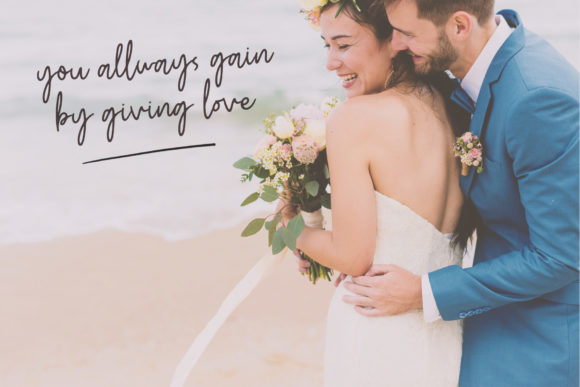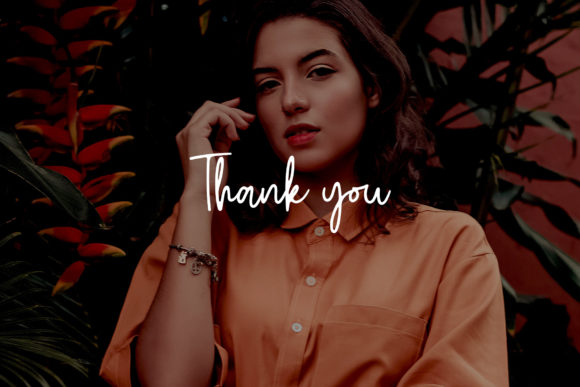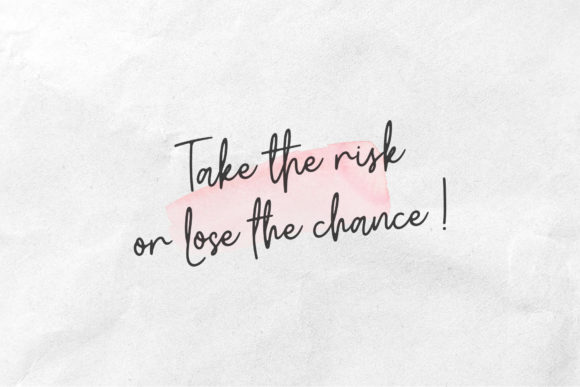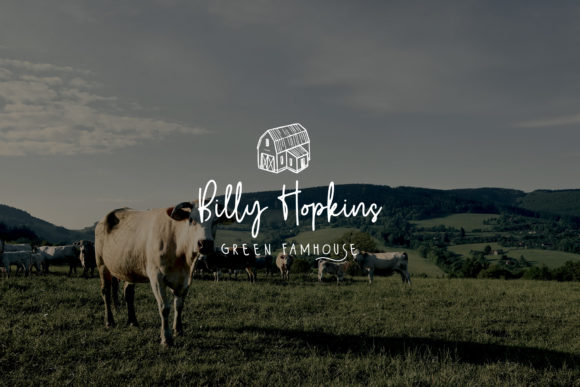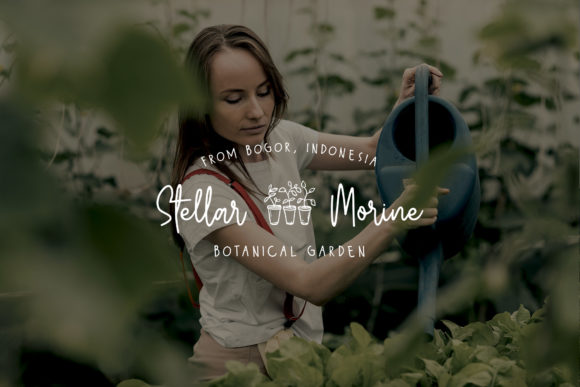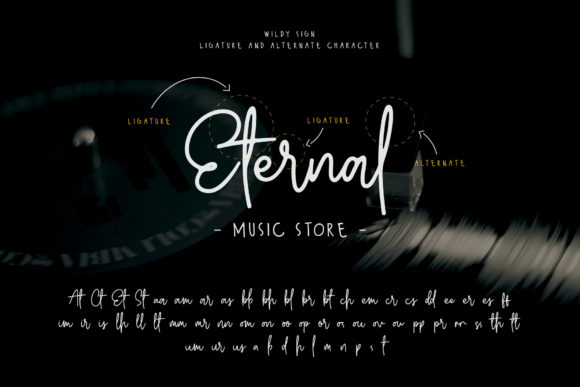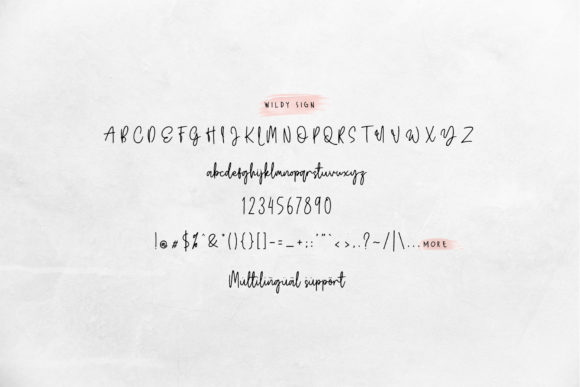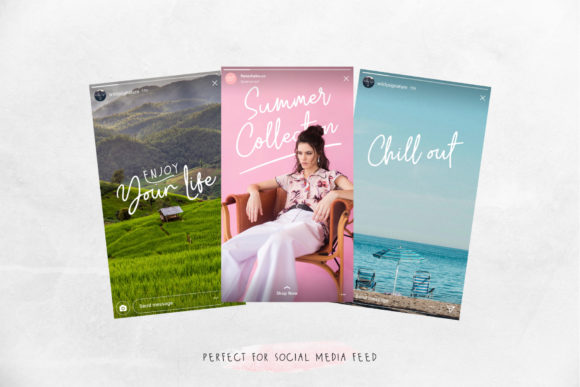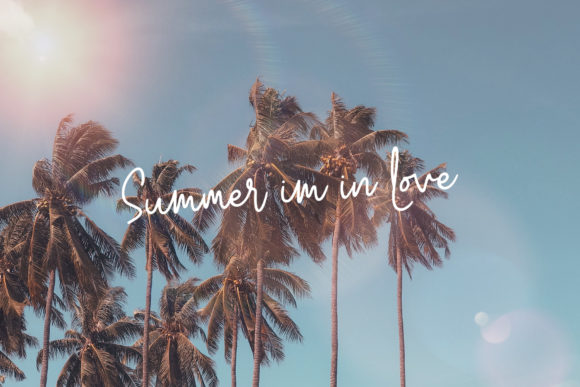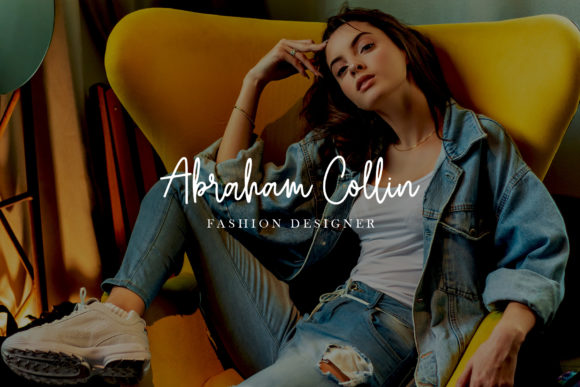
Wildy Sign Font
About Wildy Sign Font
Wildy Sign is an adventurous and daring script, full of authenticity. It will add a dash of authenticity to any creative project.